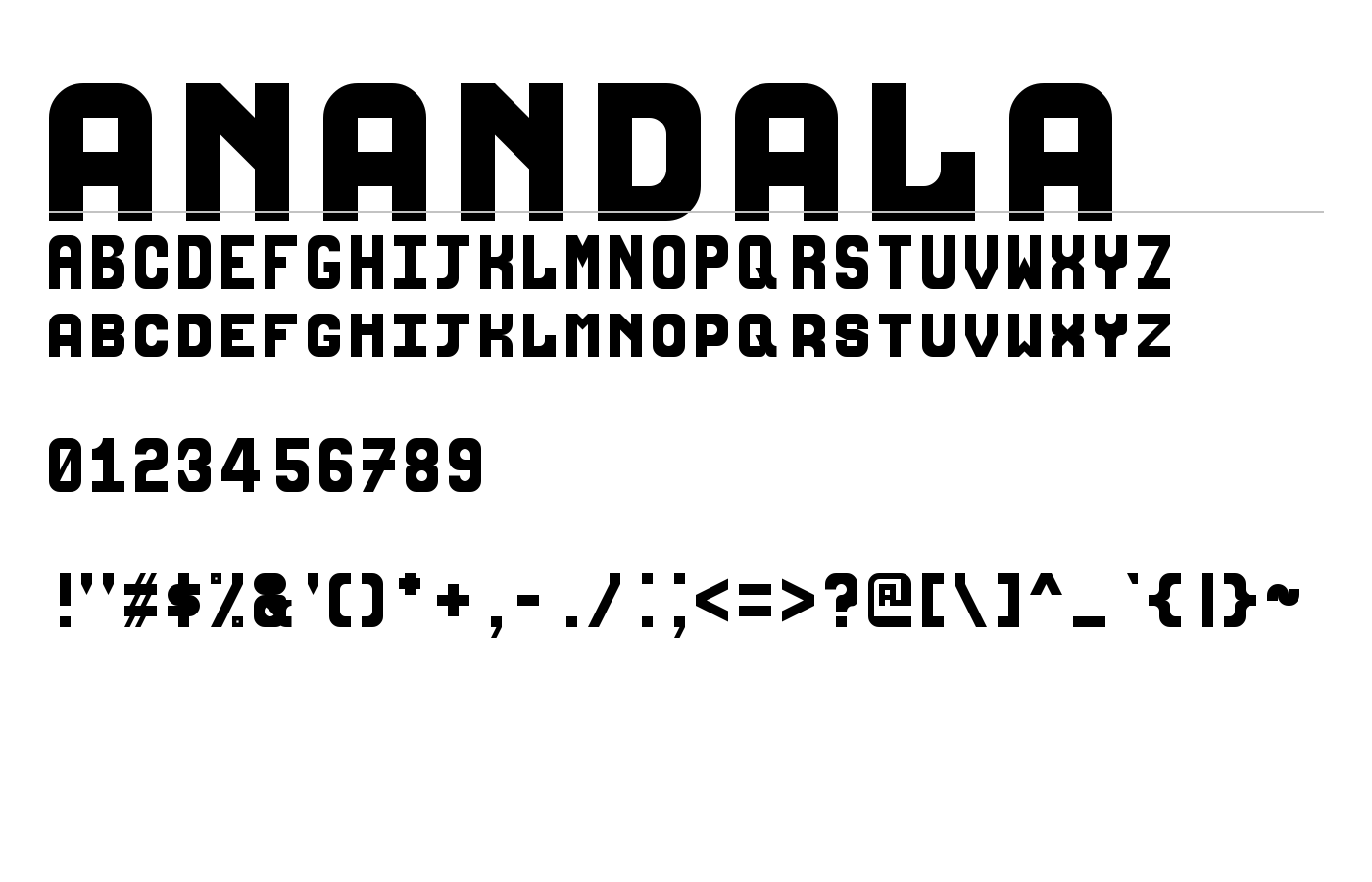
Anandala is a bold, condensed sans serif font with a strong geometric structure and a modern industrial feel. Its clean lines and blocky shapes give it a confident, assertive personality, making it ideal for impactful headlines, branding, and signage where clear, attention-grabbing typography is needed. This font works best in projects that require a sense of strength and clarity without sacrificing contemporary style.
About anandala Font